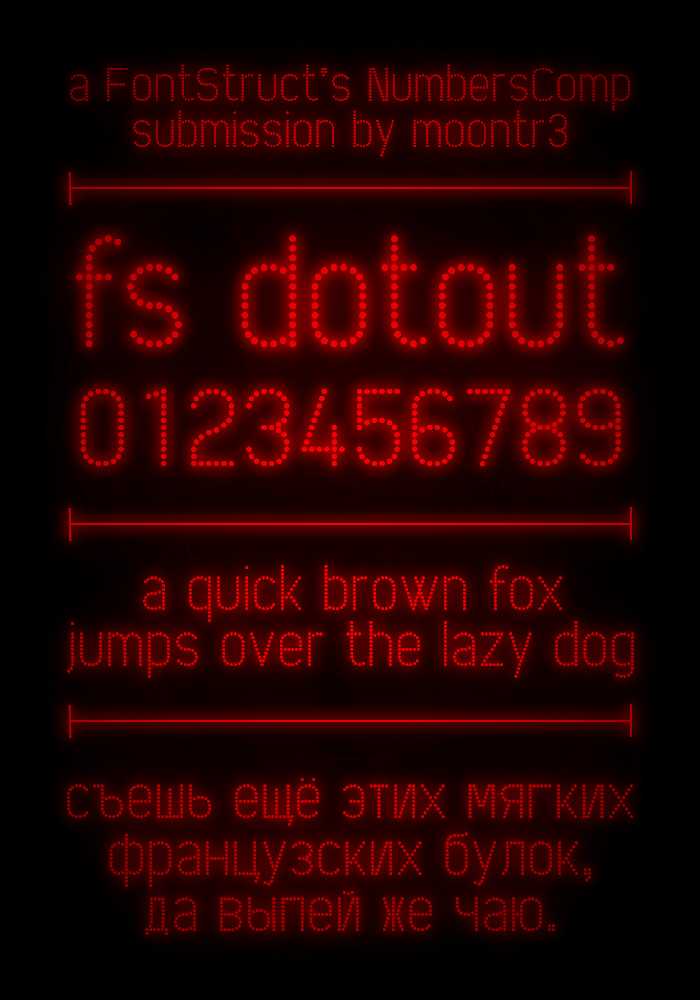
fs dotout
by moontr3
• My second submission for the Numbers competition.
This one has actually been sitting there for a while already, I haven't published it before because of the terrible kerning and some awful letter solutions. But I think the numbers are quite cool, so...
I don't particularly like dot fonts, but this is very neat work. Good luck in the Comp.
@elmoyenique: Are my dot fonts falling into the category that you don't like?
@moontr3: Отличный шрифт! Только д Д жЖ Ы слишком уж узкие. Ну и приём, как в ь ы ъ обычно повторяется в букват в я, а сейчас слишком они выпадают из общей DIN-like стилистики.
@elmoyenique: Are my dot fonts falling into the category that you don't like?
@moontr3: Отличный шрифт! Только д Д жЖ Ы слишком уж узкие. Ну и приём, как в ь ы ъ обычно повторяется в букват в я, а сейчас слишком они выпадают из общей DIN-like стилистики.
@Dmitriy Sychiov: You've made nice dot fonts, I remember that.
Congratulations! FontStruct Staff have deemed your FontStruction worthy of special mention. “fs dotout” is now a Top Pick.
Congrats on the TP!